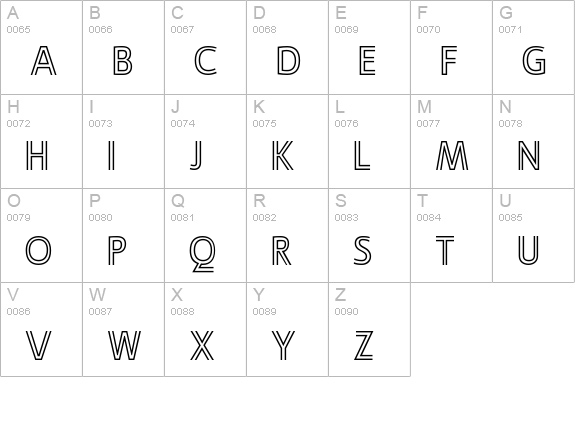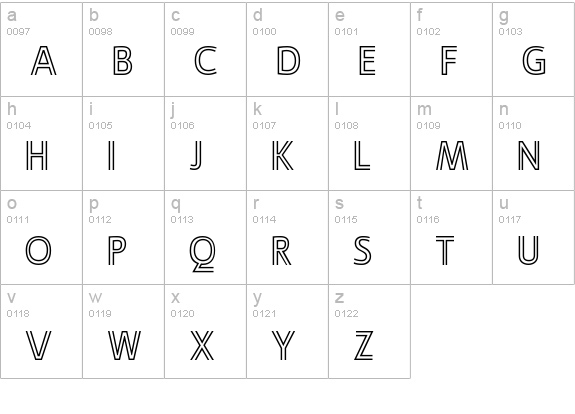
Ligurino Outline Font Details
Ligurino Outline font is a sleek and modern typeface that exudes sophistication and elegance. With its clean lines and minimalist design, this font is perfect for a wide range of design projects, from branding to editorial layouts. The outline style adds a unique touch to any text, making it stand out and capture attention. The beauty of Ligurino Outline font lies in its versatility - it can be used for both headlines and body text, adding a touch of class to any project. Whether you're designing a website, creating a poster, or crafting a logo, this font is sure to make your work shine. Best of all, Ligurino Outline font is completely free to download at FontsMarket.com. So why wait? Add this stunning typeface to your collection today and take your designs to the next level.